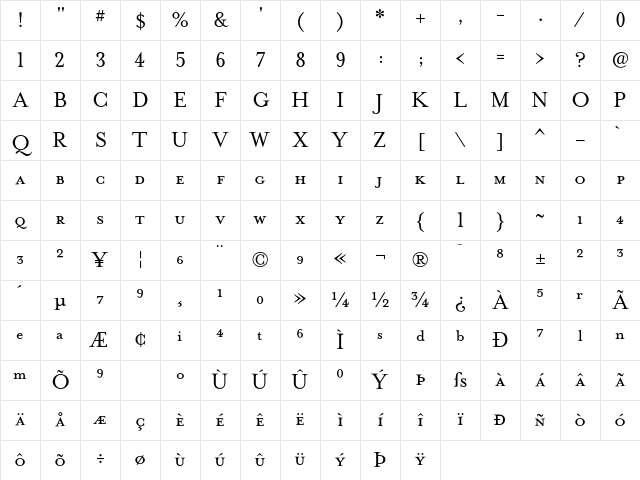
MrsEavesPetiteCaps Roman
Design Context for MrsEavesPetiteCaps
MrsEavesPetiteCaps is a composed and adaptable typeface that performs quietly and consistently across a wide range of design contexts.